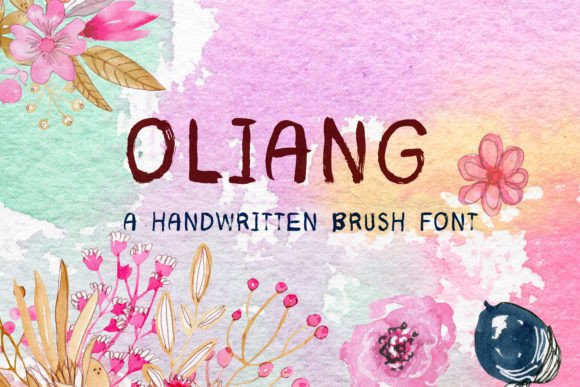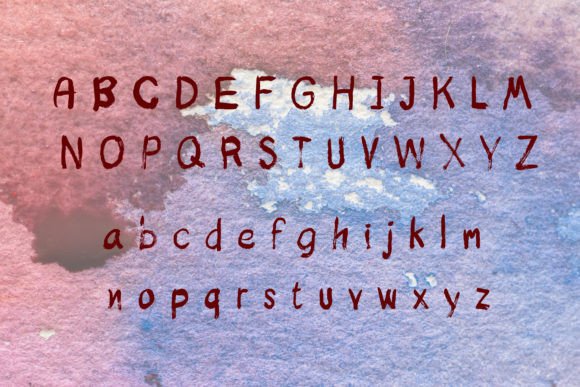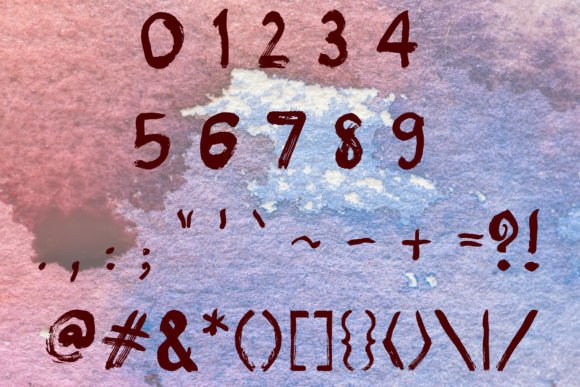
About Oliang Font
“Oliang” is a handwritten brush font that offers a versatile and friendly aesthetic, making it suitable for a wide range of design concepts. This font is well-suited for products that aim to convey a sense of approachability, relaxation, and artistic flair, enhancing the overall attractiveness of the product.
In the realm of product design, “Oliang” can be a valuable asset for items with a design goal centered around friendliness and a relaxed vibe. Whether it’s product packaging, labels, posters, or any design element, this font can help create a visually appealing and inviting product presentation.
“Oliang” adds a touch of artistic charm to your designs, making it ideal for products that want to stand out by embracing a more creative and expressive style. This font can be used in various design contexts to enhance the overall visual appeal and make the product more engaging to the target audience.
In summary, “Oliang” is a versatile handwritten brush font that brings a sense of friendliness, relaxation, and artistic flair to a wide range of design ideas. Its ability to create an inviting and attractive design makes it a valuable tool for designers and creatives aiming to add warmth and approachability to their products.